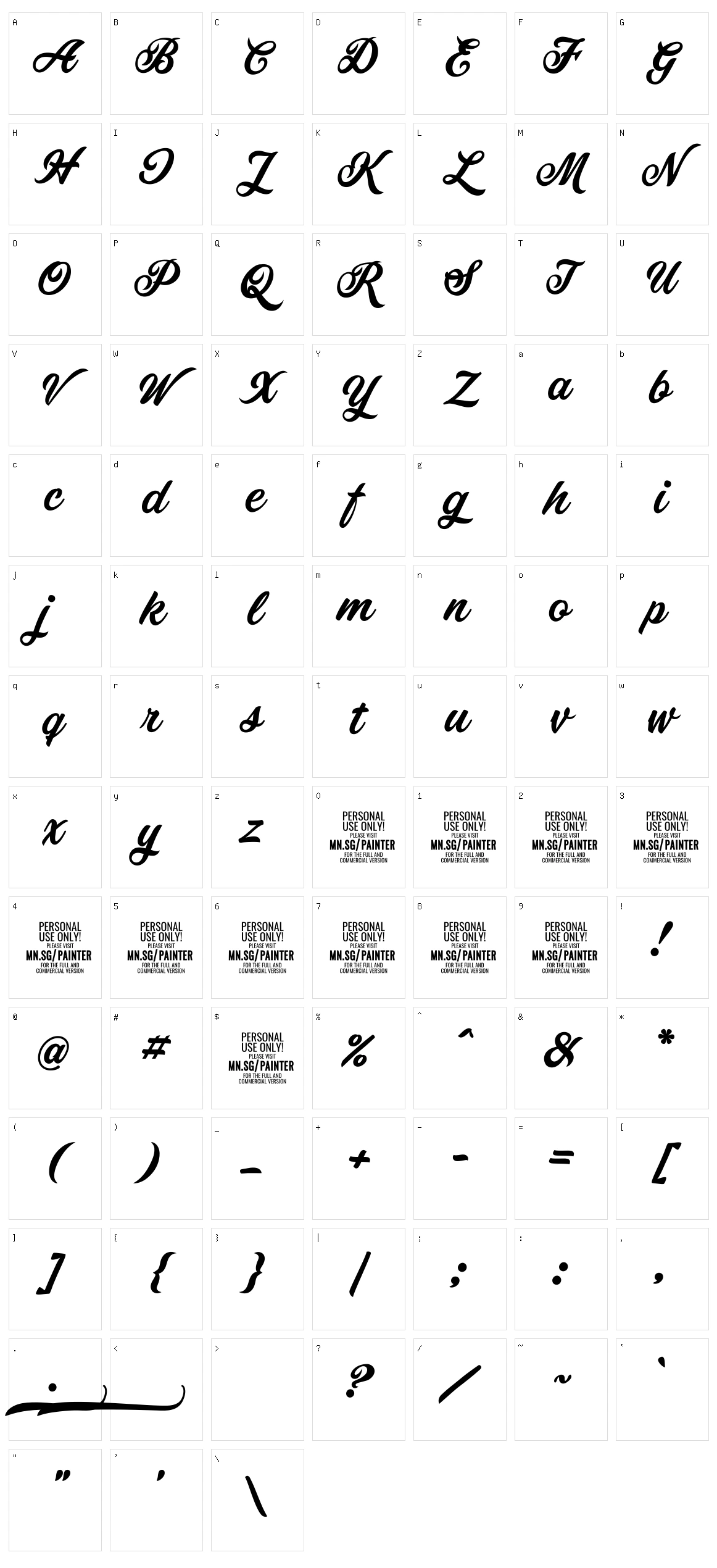
Painter is a bold script font, with wide and wet brush strokes.
It is articulate and clean, holds a high quality and comes with many features.
Some of them are contextual and stylistic alternates, support for hundreds
of languages, ligatures and a lot of special characters.
The typeface is created by Måns Grebäck and works great for logotypes and
other graphics that require a confident, handcrafted impression.
Use > or < after a word to add a swash effect.
Example: Painter>